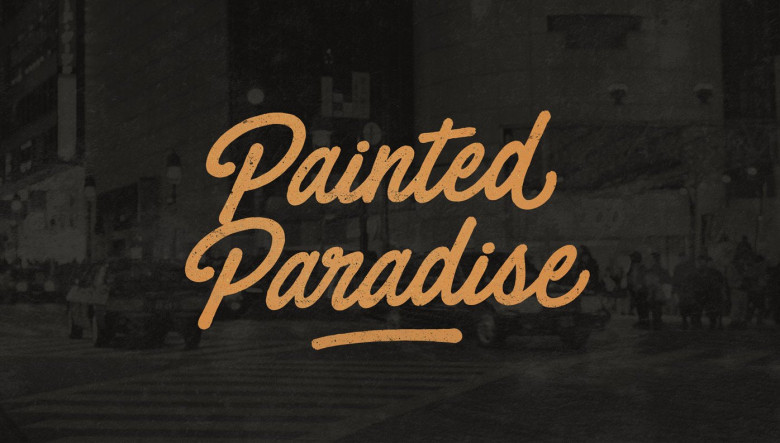
Painted Paradise Font
Continue to be a typography designed by professional BLKBK designer. Introducing First Take Brush Font. Painted Paradise is textured brush font, contemporary approach to design, handmade natural. Suitable for use in title design. Such as apparel, invitations, books tittle, stationery design, quotes, branding, logos, greeting card, t-shirt, packaging design, poster and more.